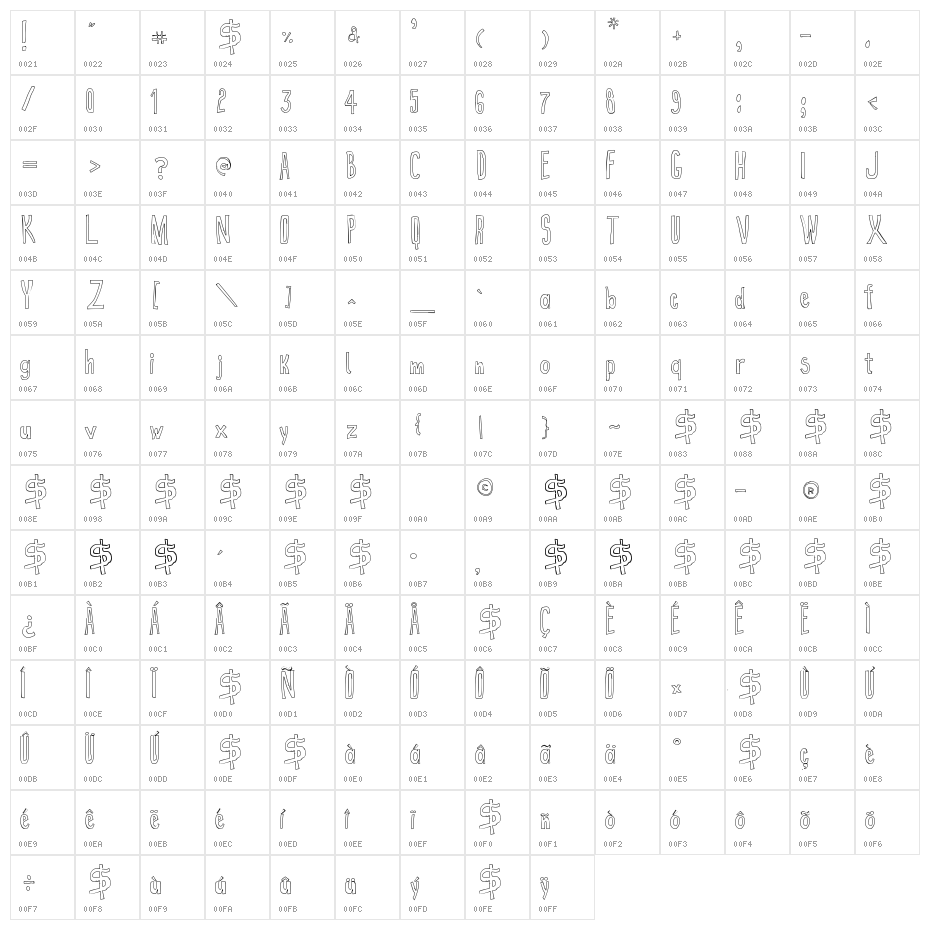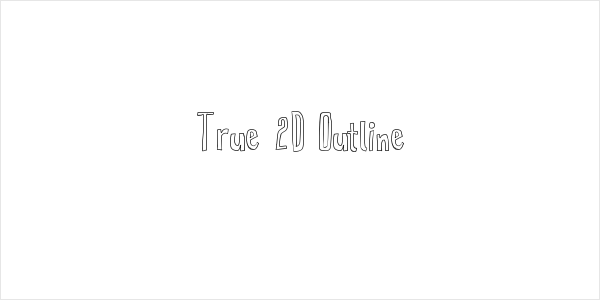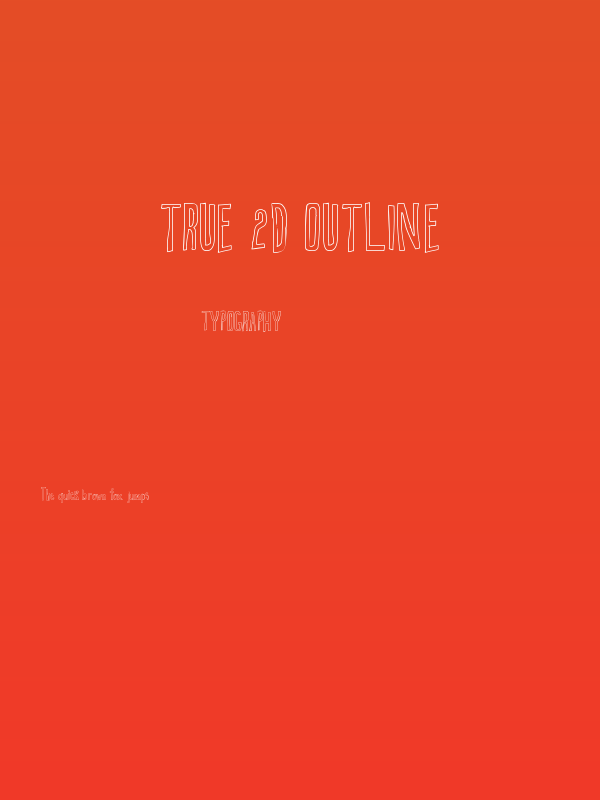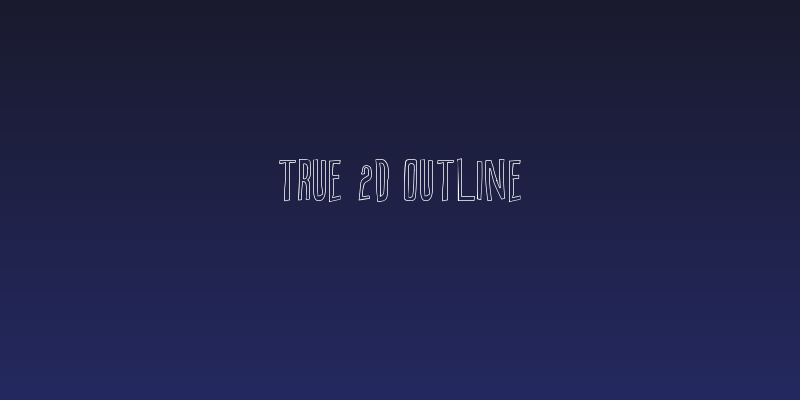
True 2D Outline Font
True 2D Outline Description
This font features a playful and artistic outline style, characterized by its hand-drawn appearance. The uppercase and lowercase letters maintain a consistent height, with a slightly irregular and whimsical form that adds a unique charm. The numbers and special characters follow the same outline style, ensuring a cohesive look across all glyphs. The font's design is reminiscent of doodles or sketches, making it ideal for projects that require a casual and creative touch. Its outline nature allows for versatility in design, as it can be filled with colors or textures to enhance its visual impact.
Proposed ProjectsIdeal for children's books, creative posters, playful branding, and artistic invitations.